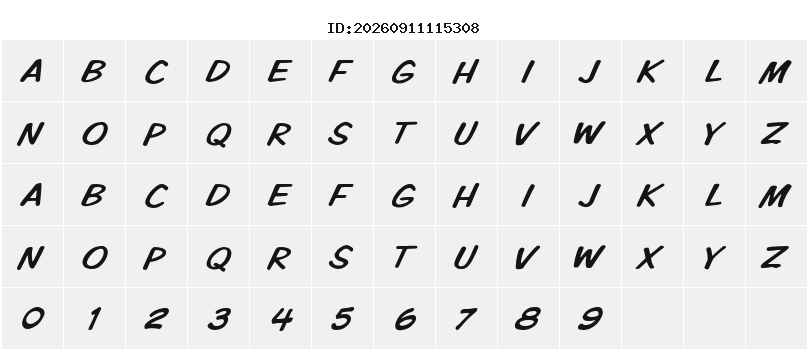
• Font Name: VTCKomixationCapsItalic
• Full Font Name: VTCKomixationCapsItalic
• Designer: WolfBainX
About VTCKomixationCapsItalic.ttf
VTCKomixationCapsItalic.ttf is a modern, elegant sans-serif font designed for ultimate readability and visual harmony. Perfect for branding, headlines, web design, and print materials.